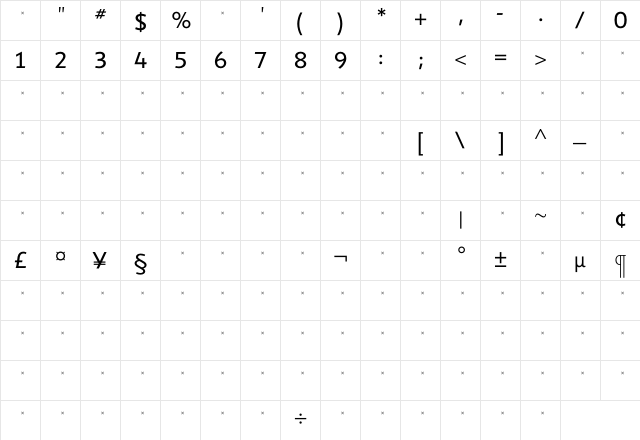
ShinnBookTab Regular
Design Context for ShinnBookTab
ShinnBookTab is a composed and adaptable typeface that performs quietly and consistently across a wide range of design contexts.
Pro Tip: Use ShinnBookTab in both headline and body roles to test its range before committing to a single application.